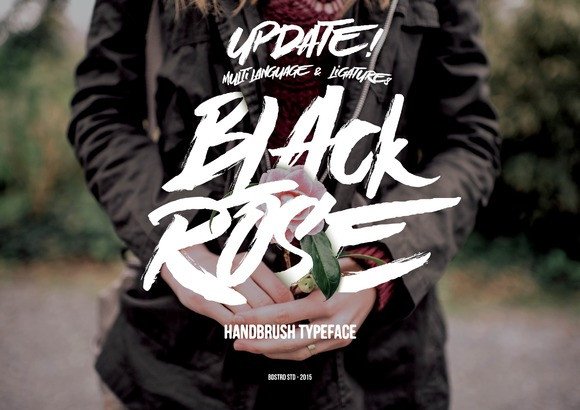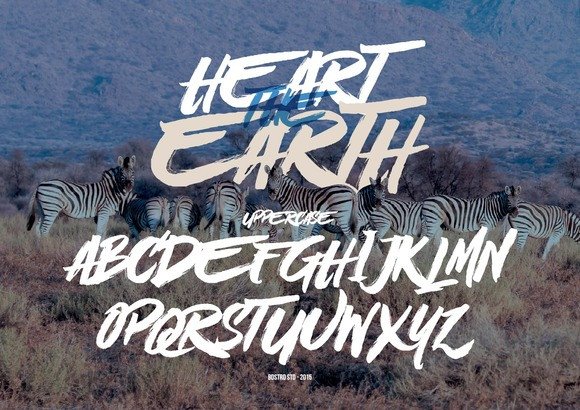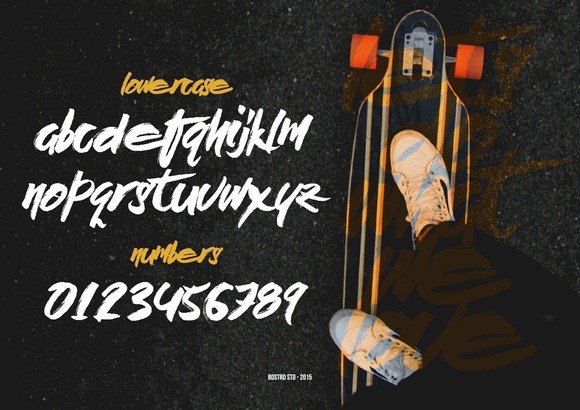
Black Rose Font
Black Rose is a beautiful brush stroke font, ideal for a wide range of designs. This font looks great in alternative design styles, and has a true hipster feel.